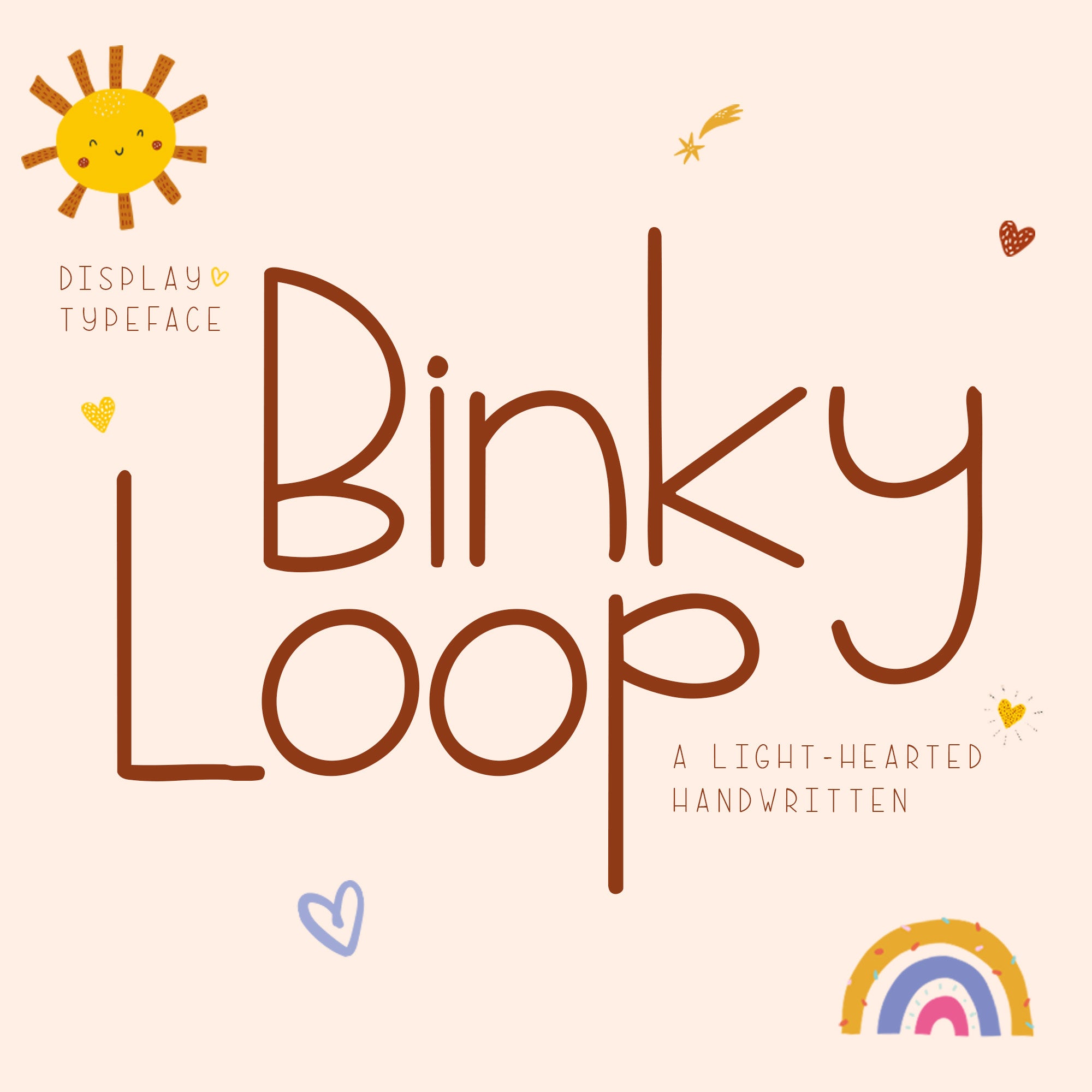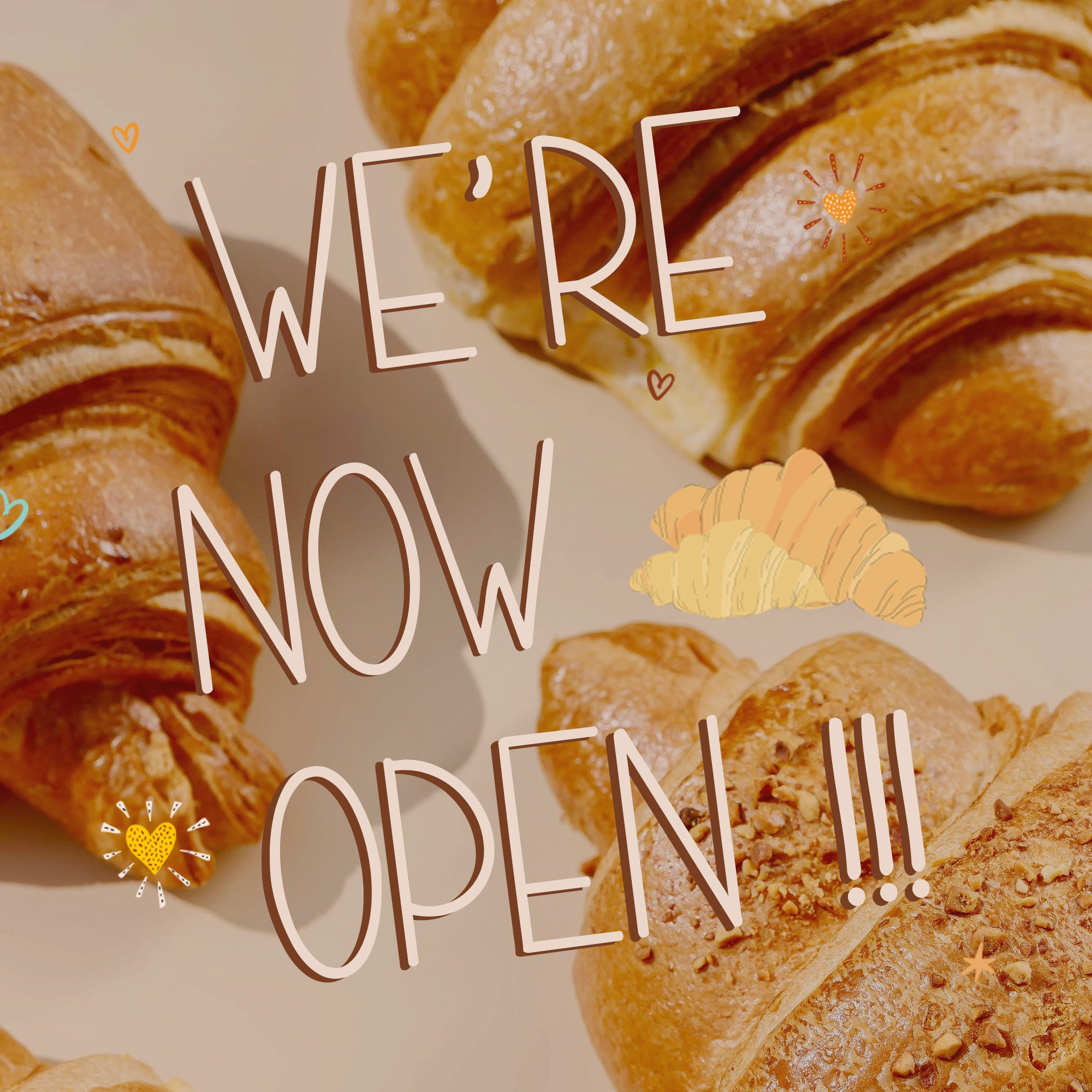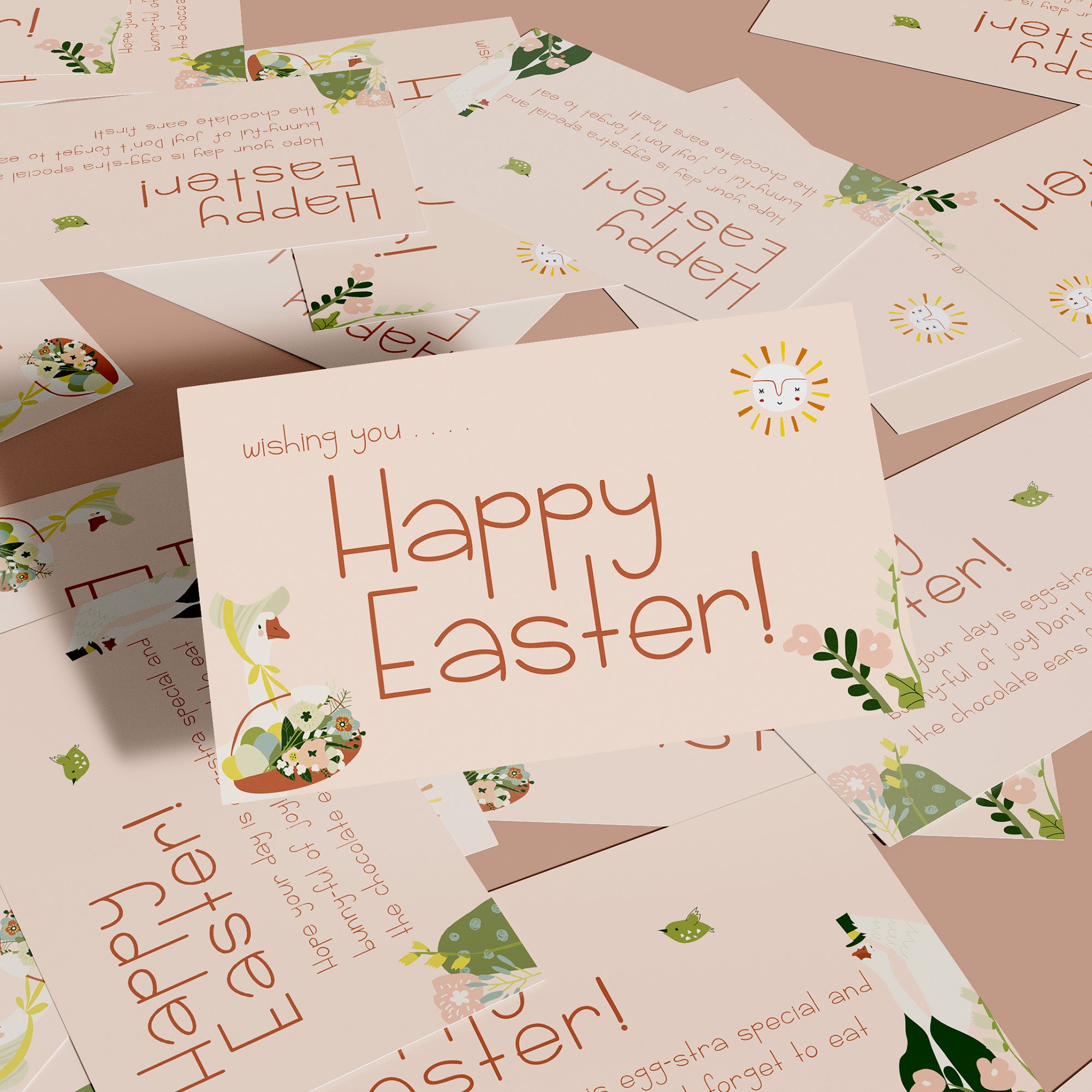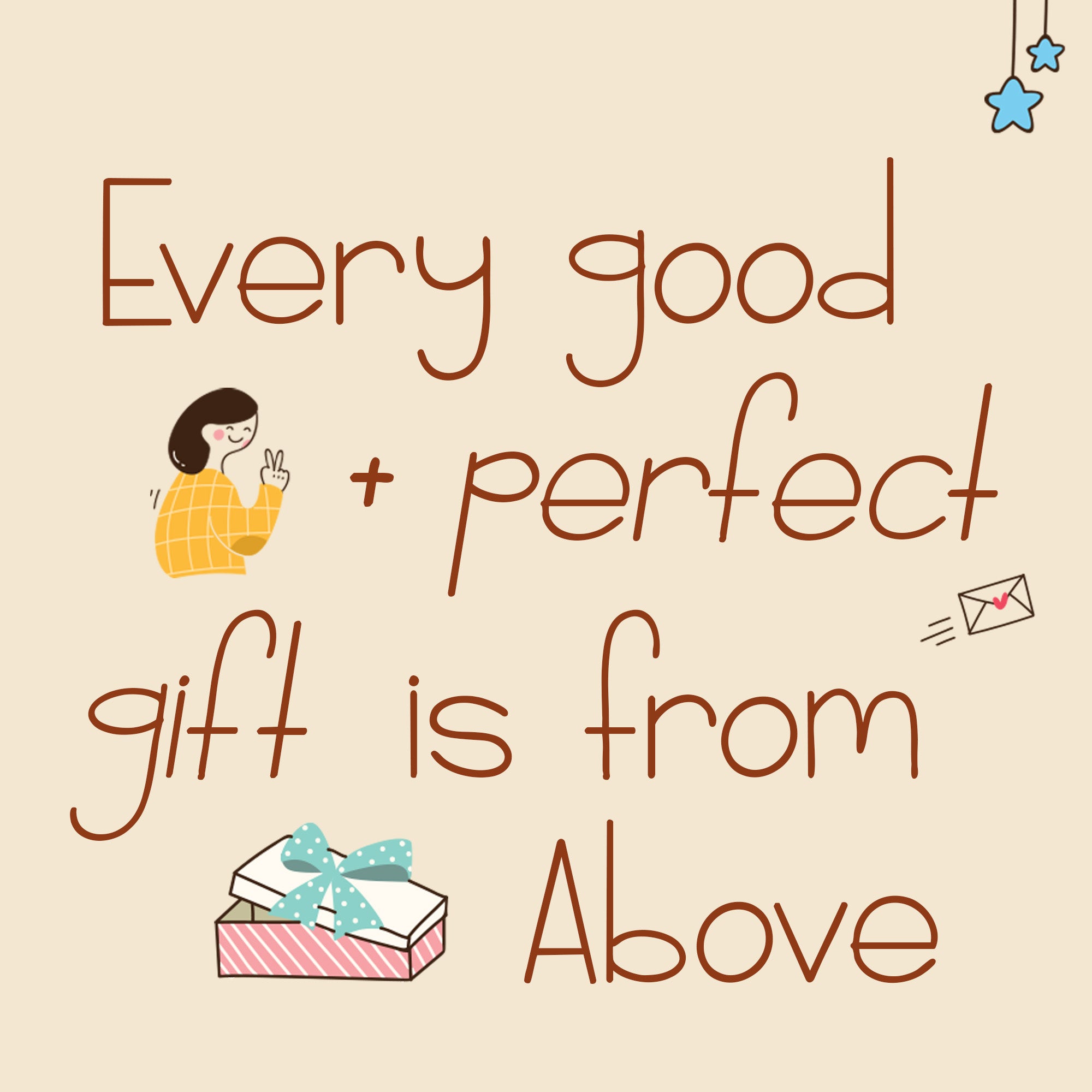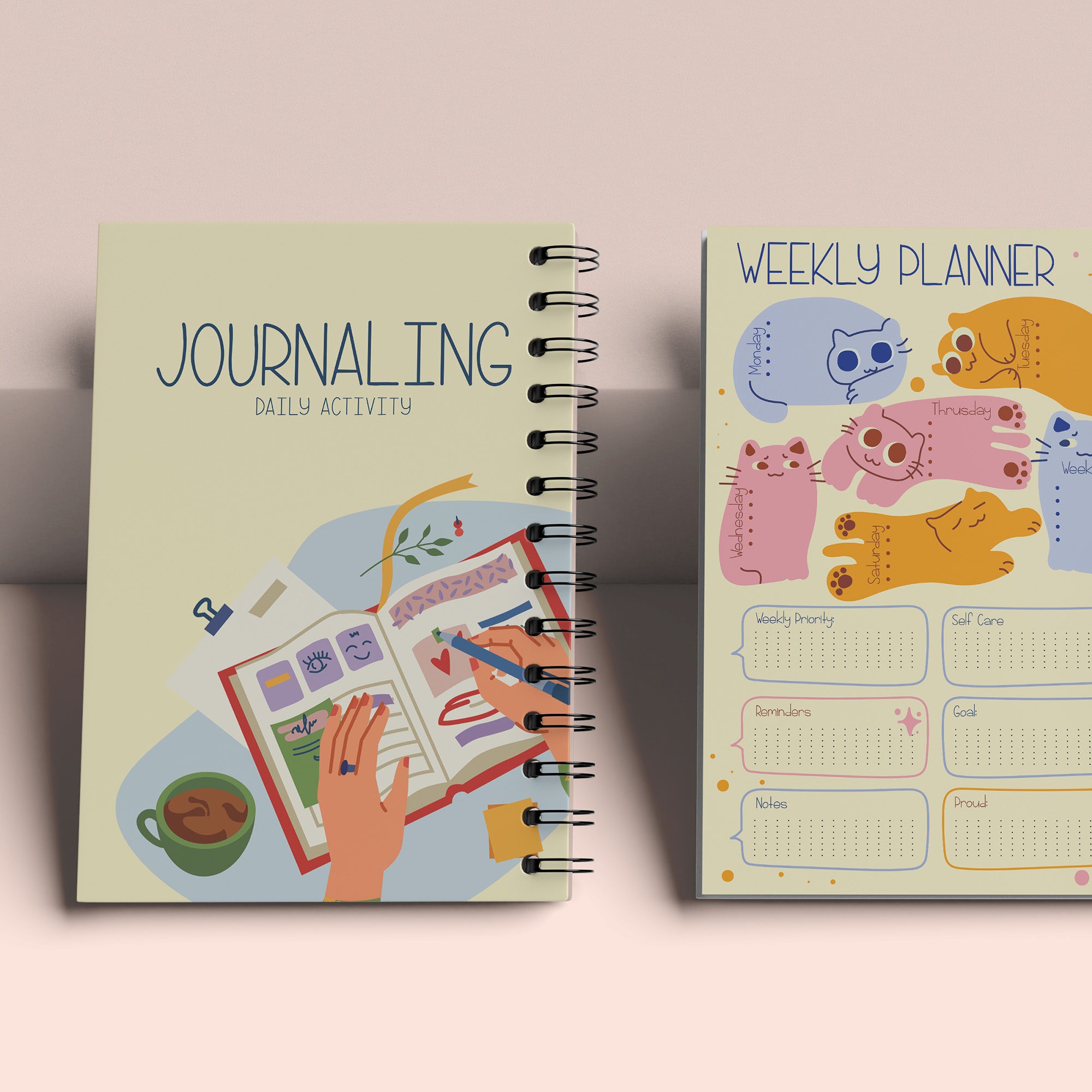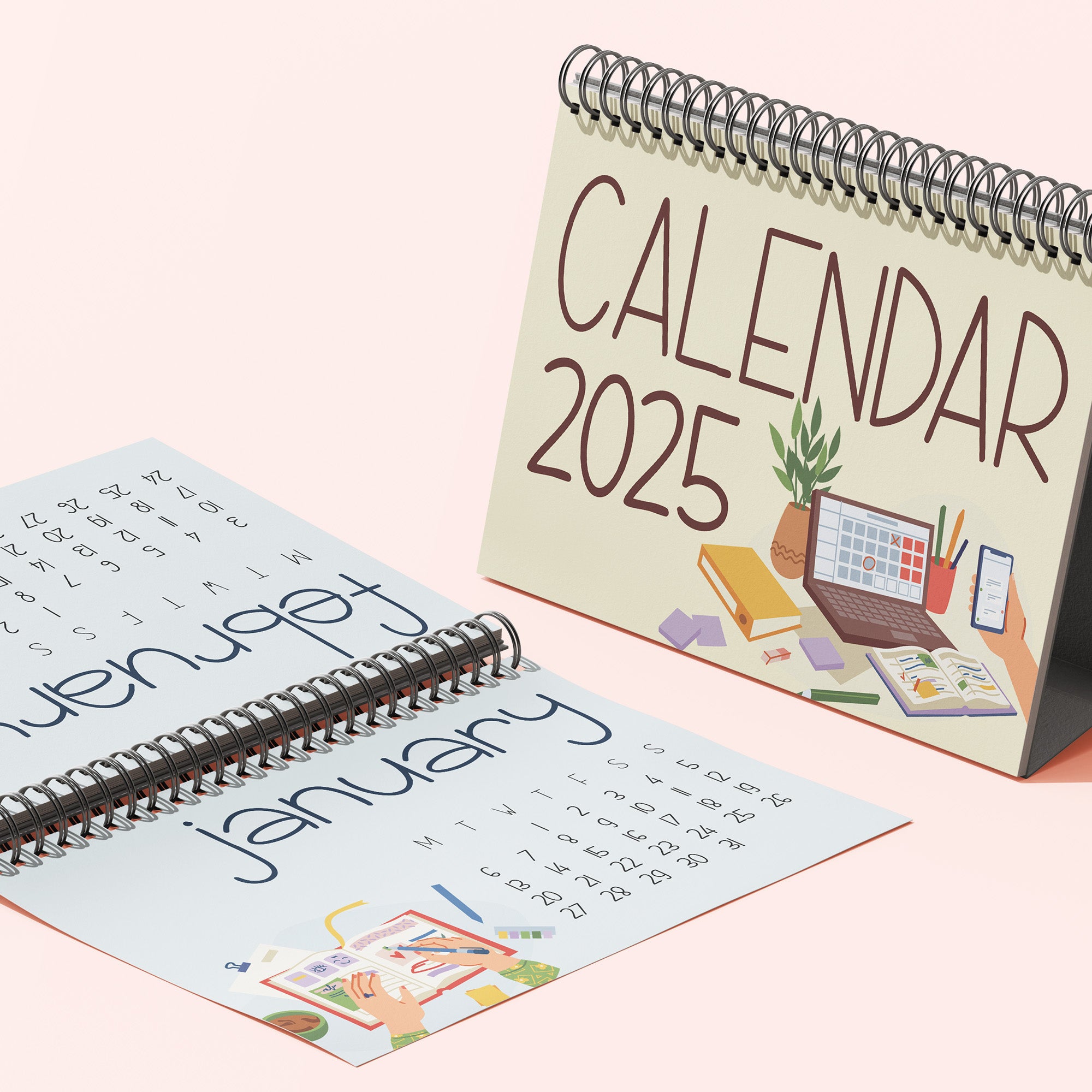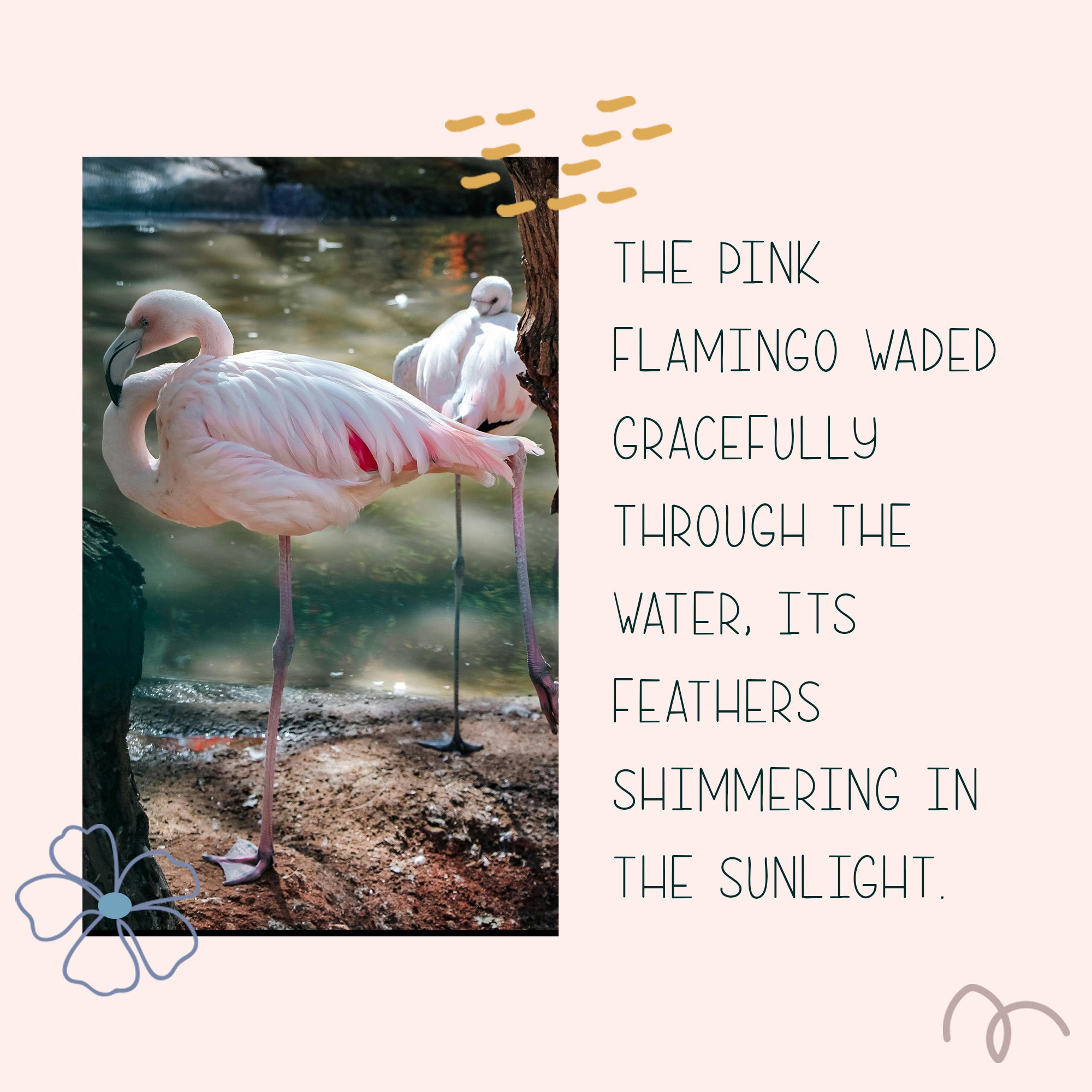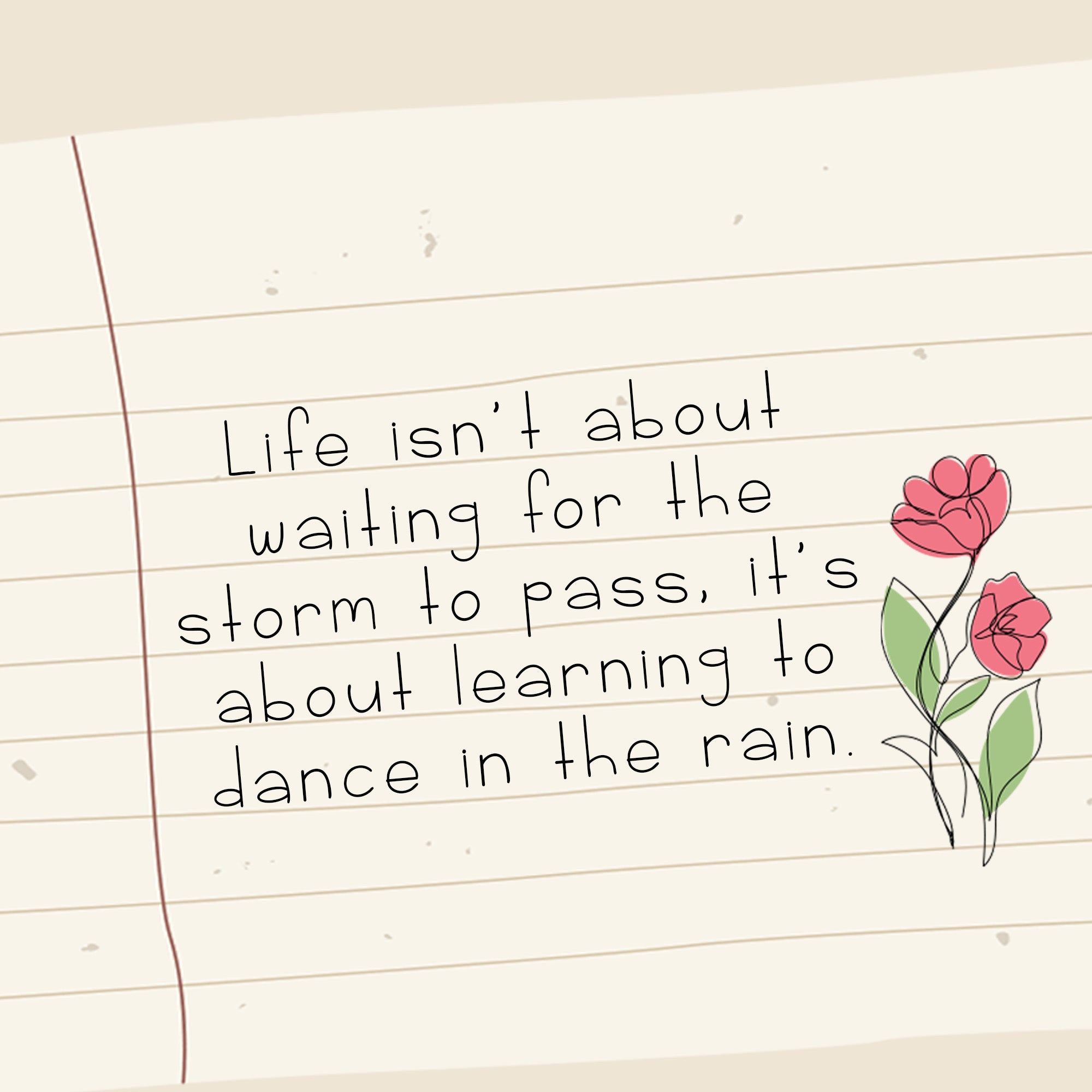
Binky Loop – Playful Handwritten Display Font
Binky Loop is a light-hearted handwritten display font with a charming and joyful personality. Its clean loops and rounded shapes create a warm, friendly vibe that instantly brings fun to any design. Perfect for projects that need a touch of playfulness Binky Loop feels like a smile in letter form. Designed with simplicity and balance, Binky Loop delivers easy readability and visual harmony. Each character is carefully drawn with smooth strokes and soft edges, giving a natural handwritten feel while keeping it modern and neat. Its casual yet intentional style makes it flexible for both display headlines and playful body text. Whether you’re designing children’s books, posters, packaging, crafts, or social media posts, Binky Loop brings positivity and charm to your work. Add a little sunshine and personality to your next project download Binky Loop today and make your words feel alive and happy!
Binky Loop is a light-hearted handwritten display font featuring clean loops and rounded shapes for a friendly and playful appearance. Designed for easy readability, it offers a modern handwritten feel with smooth strokes and soft edges, making it suitable for various design projects.